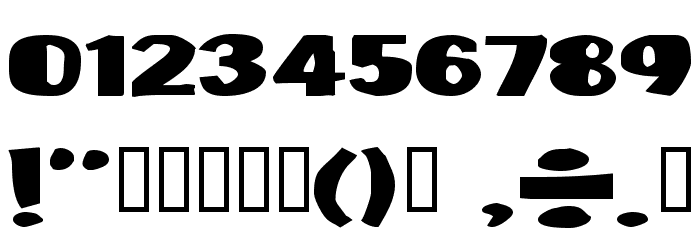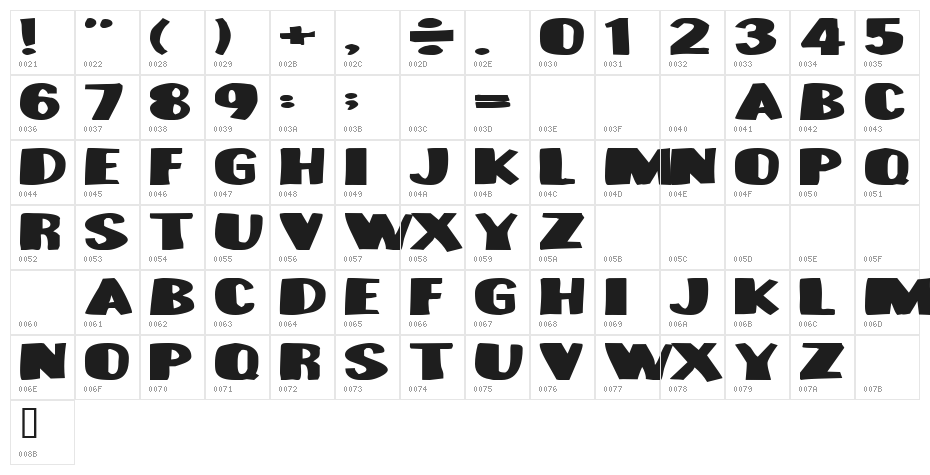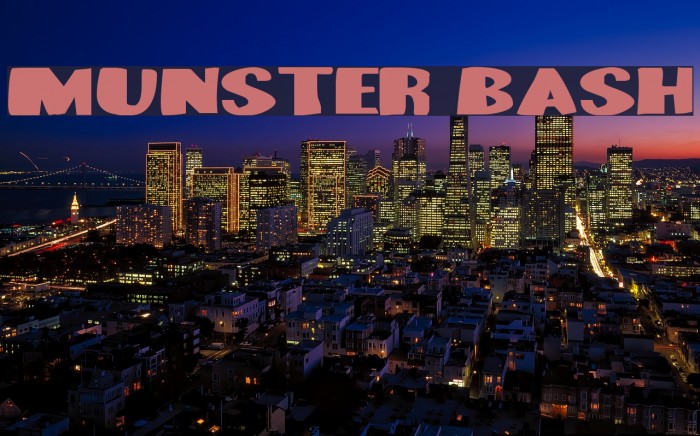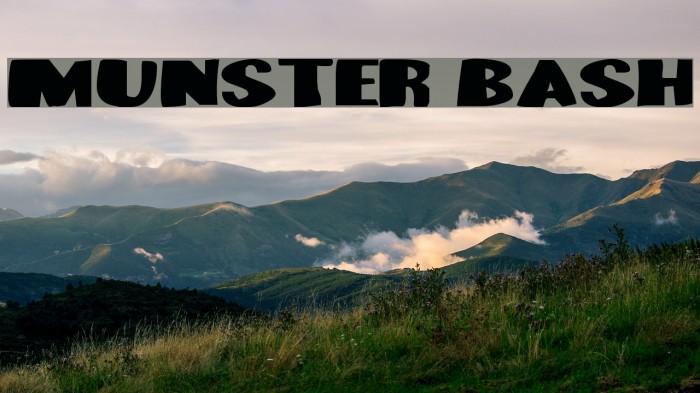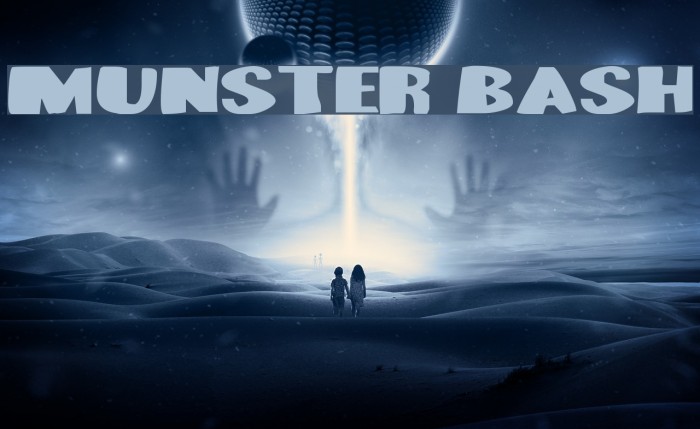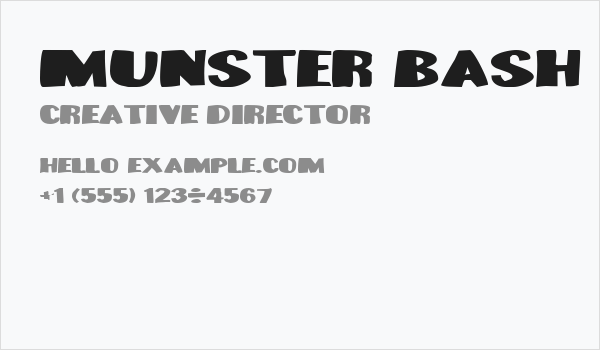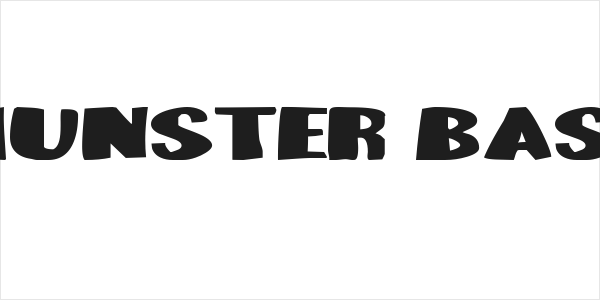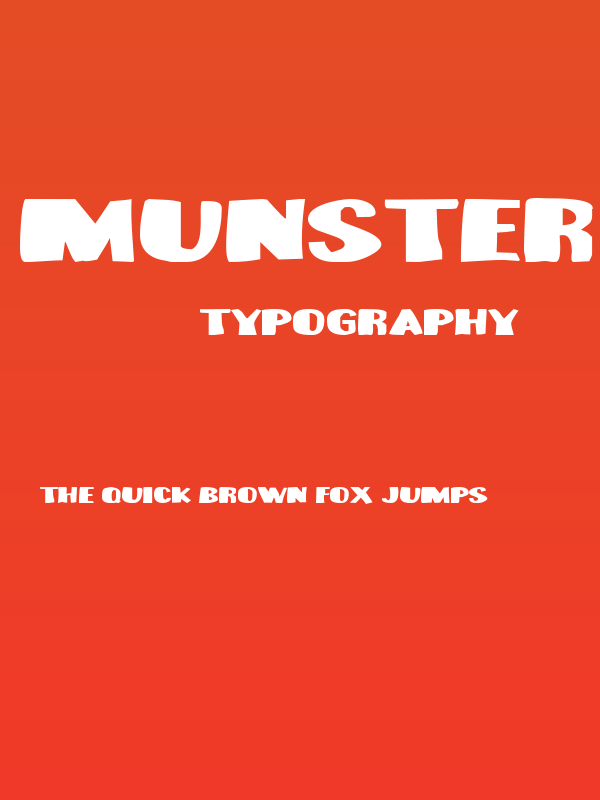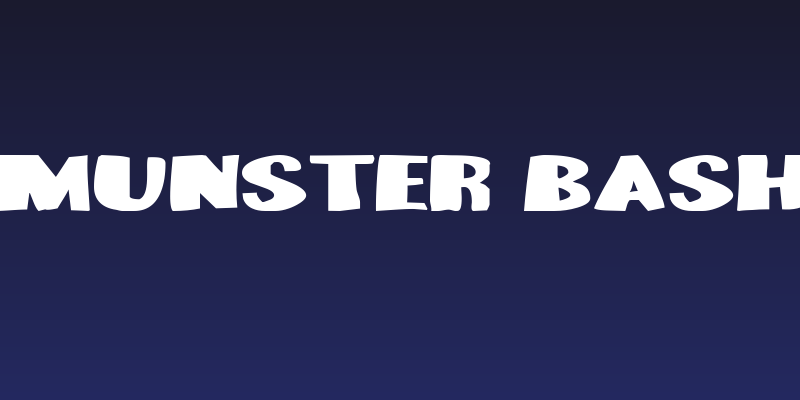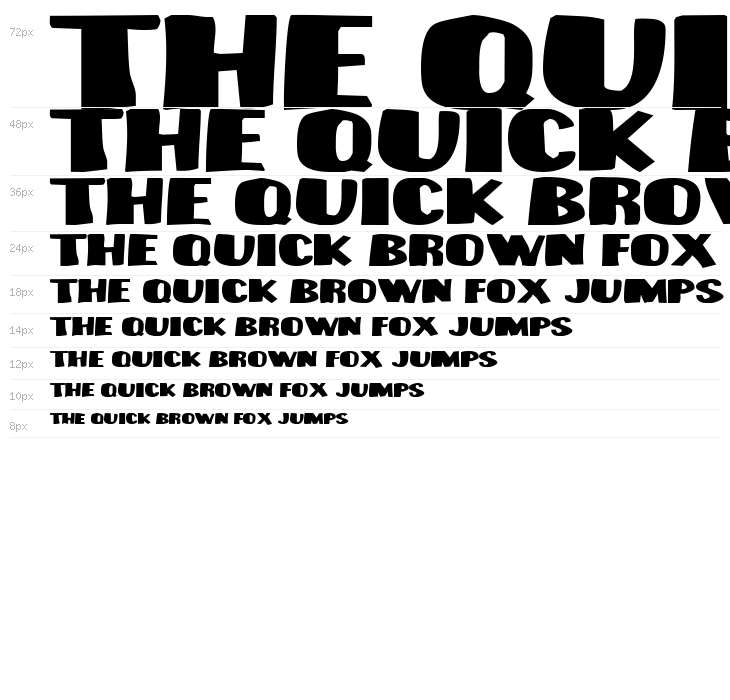
Munster Bash Font
Munster Bash Description
This font features bold, chunky letters with a playful and slightly irregular design, giving it a whimsical and energetic appearance. The characters are heavily weighted, with thick strokes and minimal contrast, creating a strong visual impact. The style is reminiscent of retro or vintage comic book lettering, with exaggerated curves and angles that add a sense of fun and dynamism. The uppercase and lowercase letters maintain a consistent style, while the numbers and special characters complement the overall aesthetic, making it suitable for eye-catching designs.
| Proposed Projects | Ideal for posters, children's book covers, comic strips, playful branding, and any project requiring a fun, attention-grabbing typeface. |